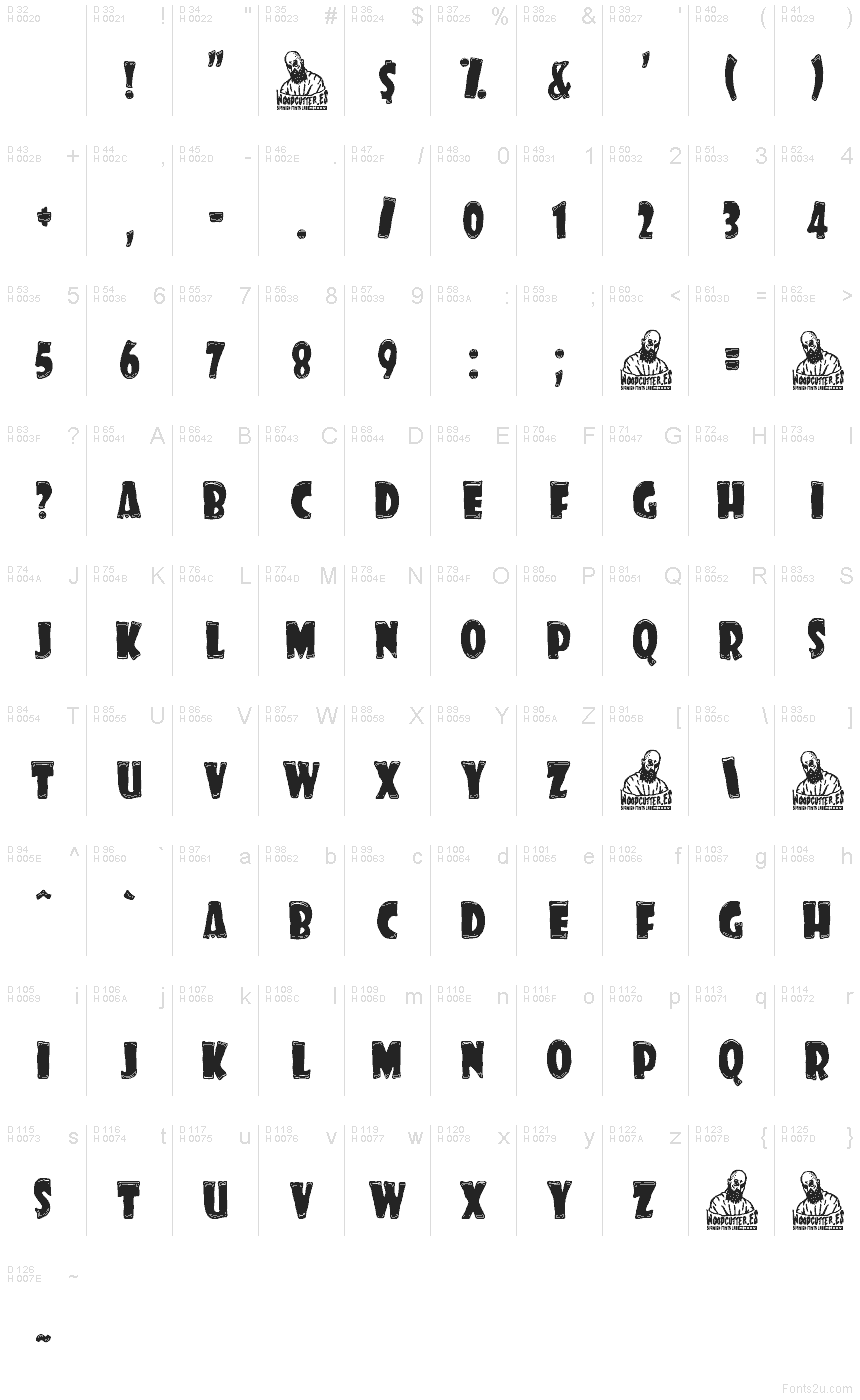
The Cartoon Hotel 02
The Cartoon Hotel 02 font by Woodcutter is a free cartoon display typeface that turns any headline into a noisy, hand-drawn spectacle. Heavy, inky letters wobble with uneven outlines and bold inner highlights, like signage in a chaotic cartoon lobby or a spooked-out theme park. Part of the The Cartoon Hotel family, it has a smudgy, almost rubbery texture that feels loud, fun, and just a little bit mischievous.
Using The Cartoon Hotel 02 font, your titles instantly grab attention on kids’ book covers, Halloween posters, slime or monster-themed games, YouTube thumbnails, toy packaging, and party invitations. The tight, chunky forms work best at big sizes where the rough edges and inner shapes can breathe. Pair this free font with a clean rounded sans serif for body copy to keep everything readable while the headlines go wild.